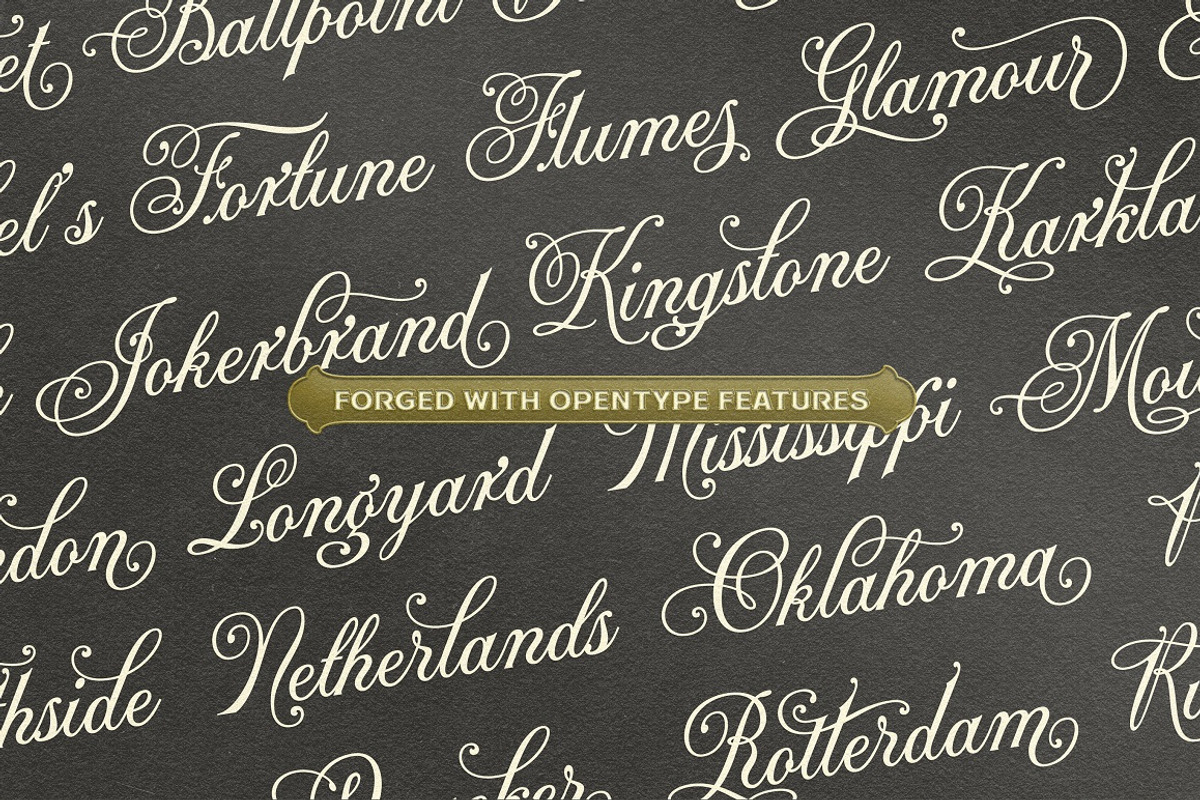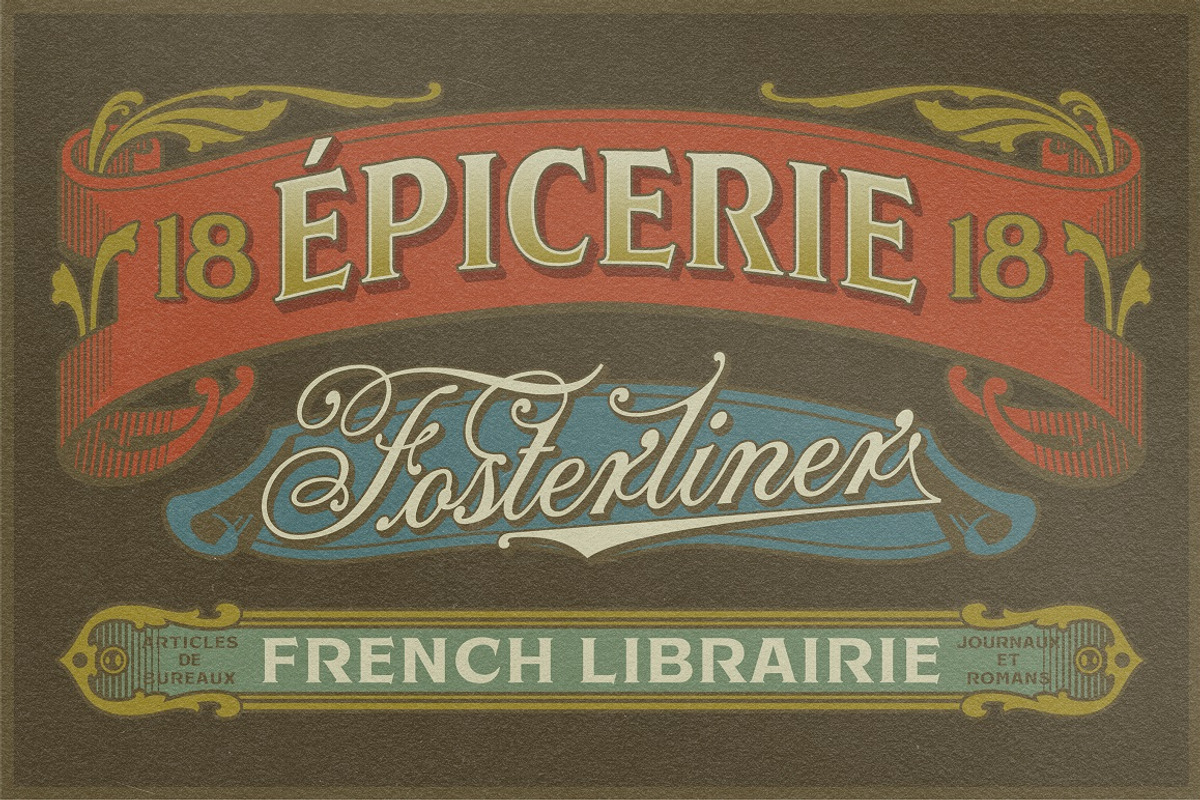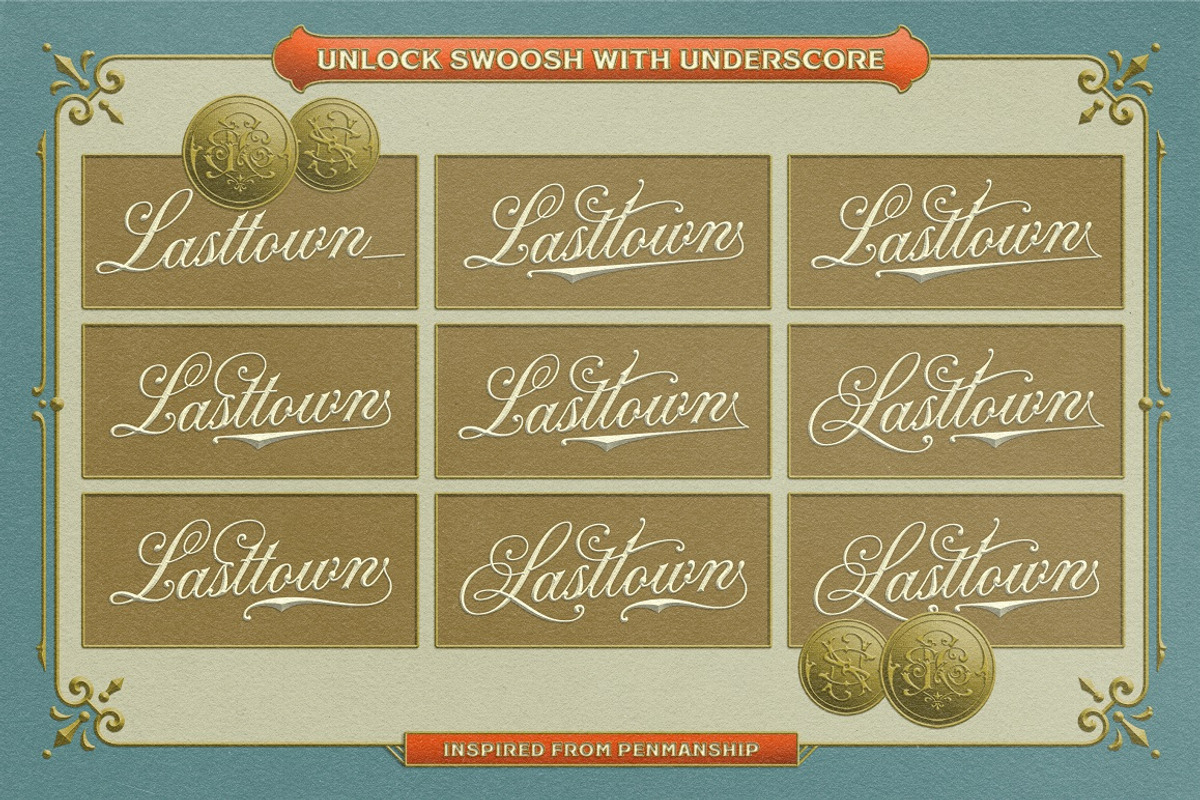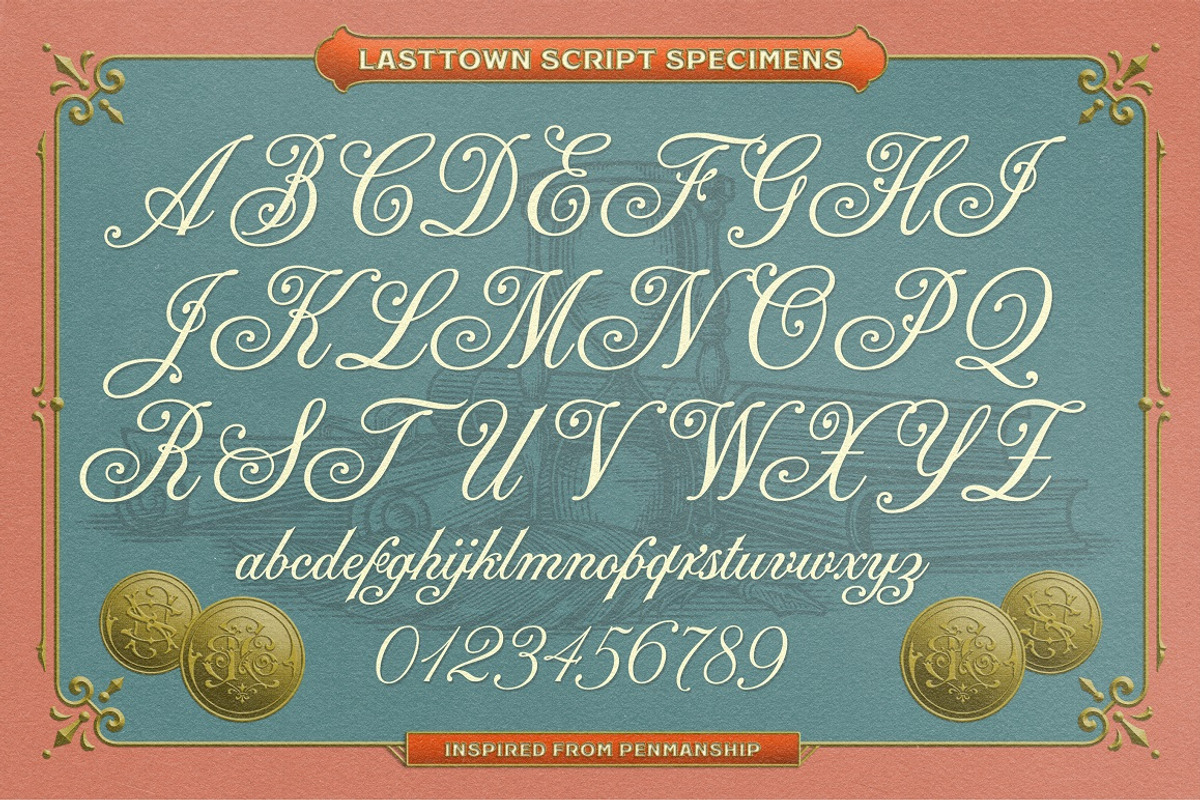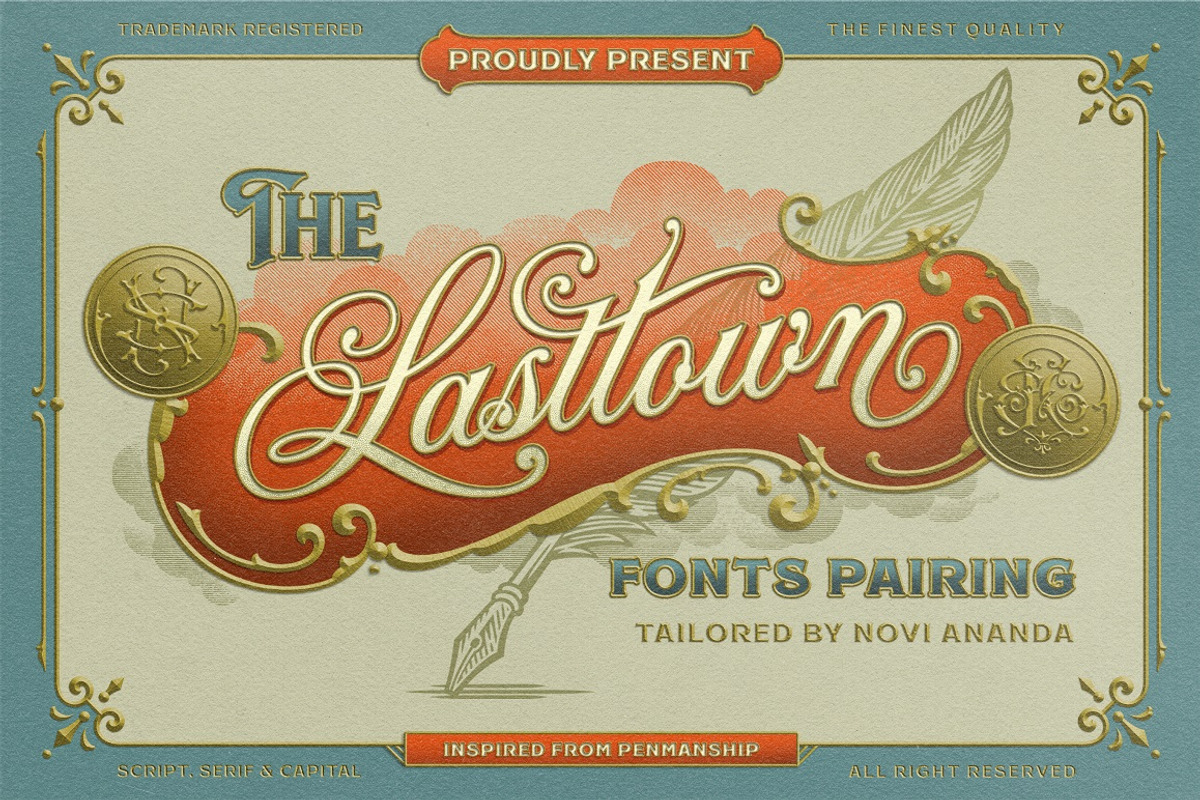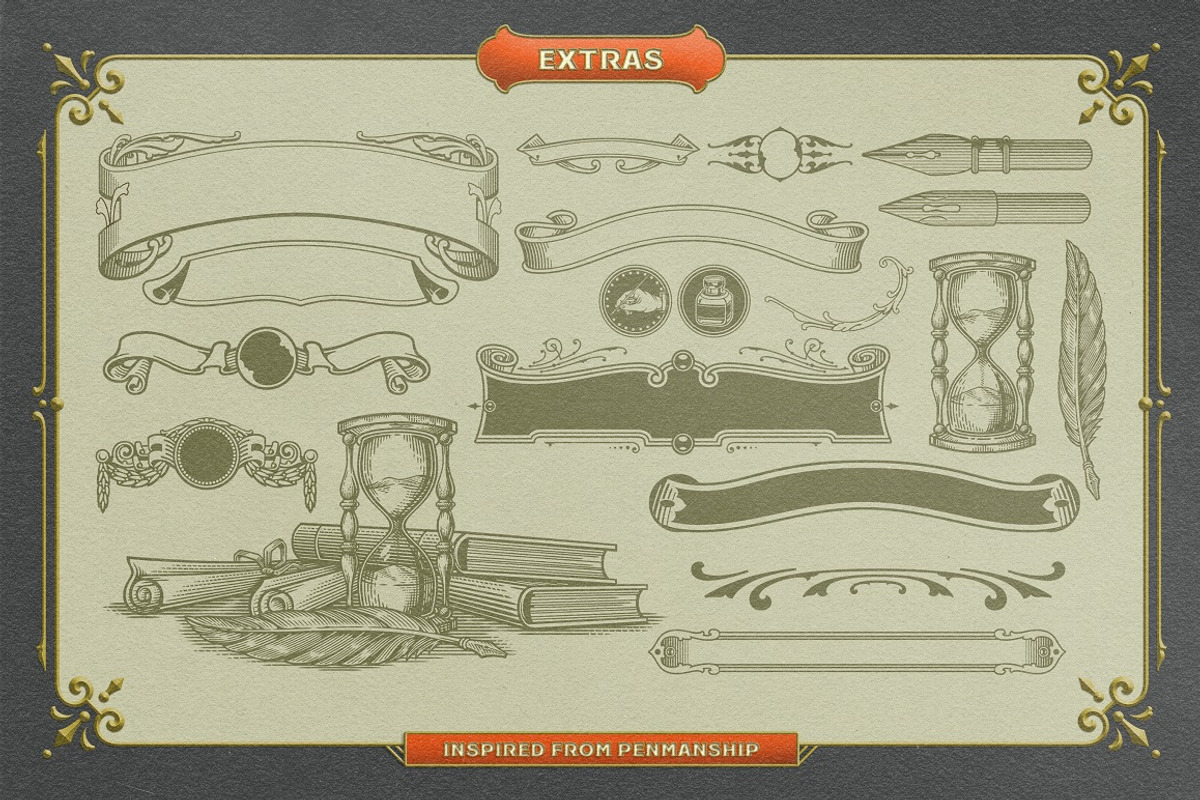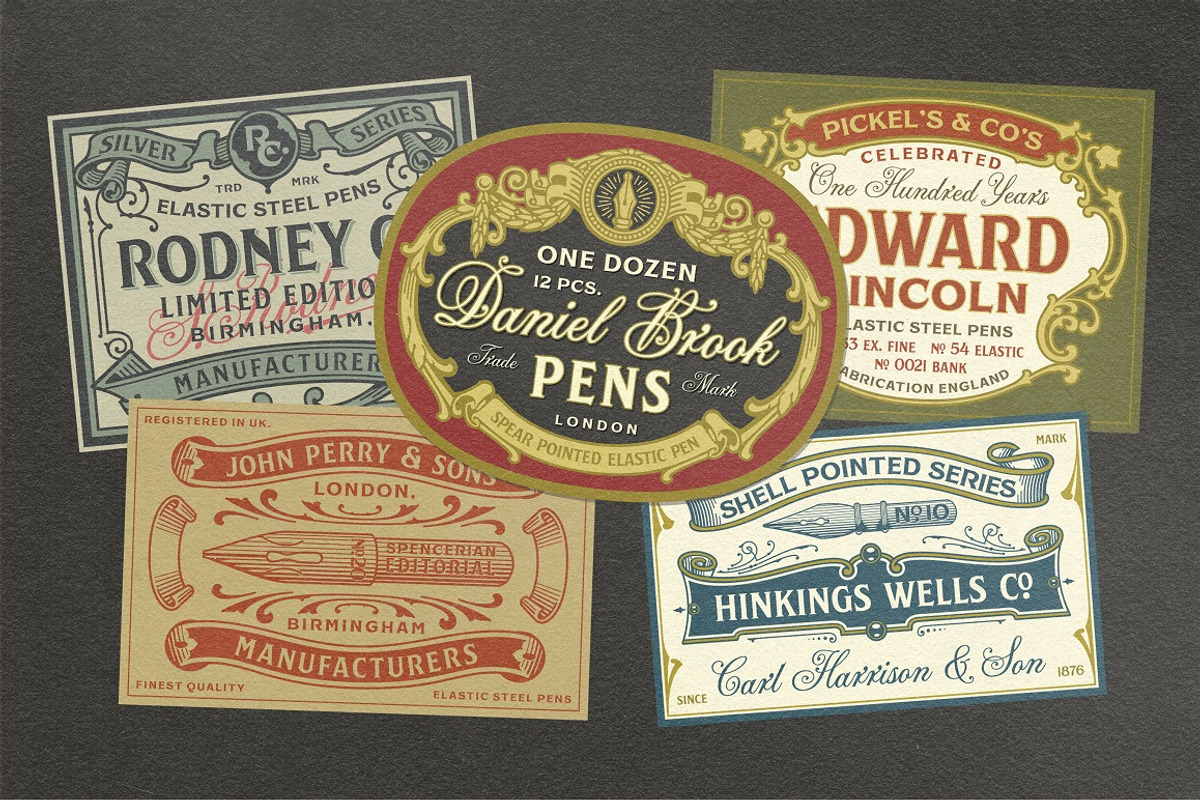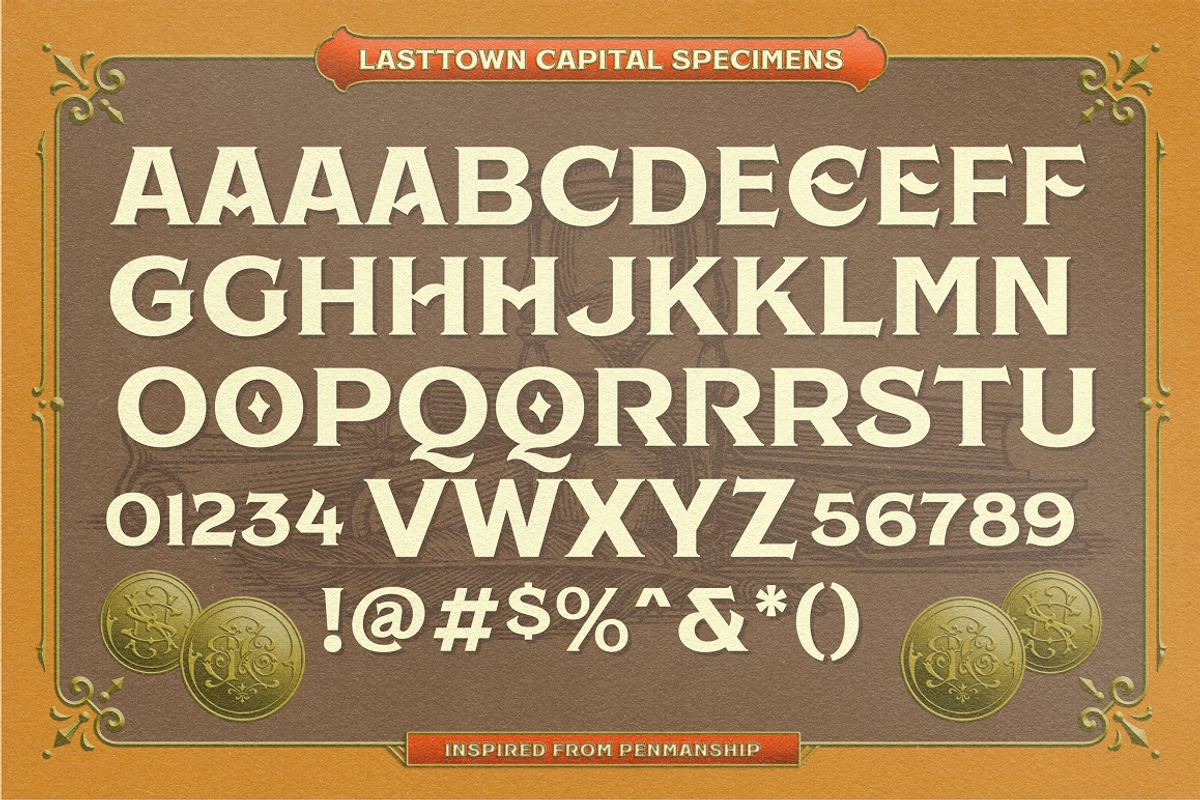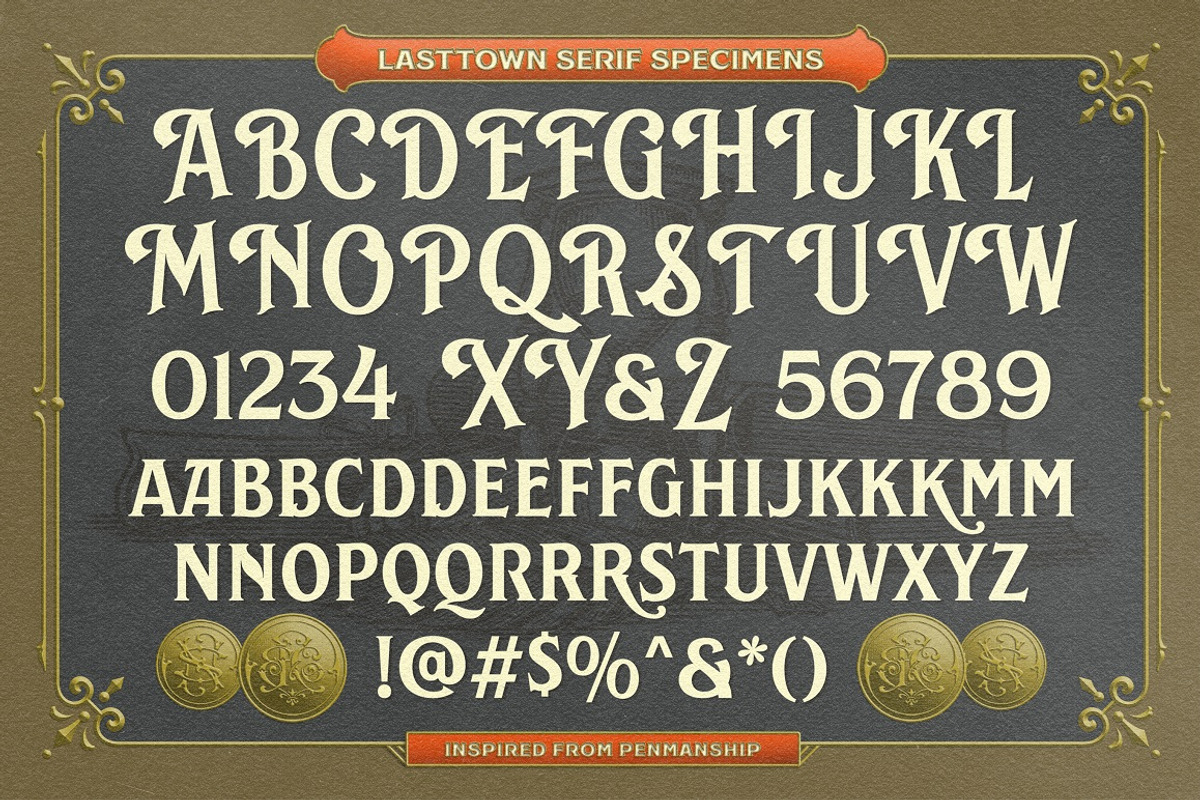
NS Lasttown Vintage Font
Inspired by the 19th century of Penmanship specimens archive from Europe and America, carefully crafted with precise mood, technique, and visual touch to bring back your design works into that specific era.
It comes with a collection of 3 fonts that match well with each other. Also a set of wide features such as Ligatures, alternative swashes, and vector pack bonus.
Lasttown will be a great choice for your classy and formal visual looks such as certificate design, vintage label, commercial lettering works, sign painting, glass gilding, logo type projects, liquor store branding, wine packaging, anytime you need a classic visual touch, please, be our guest.
- OTF Features : Stylistic Set 01 to 07 and Ligature